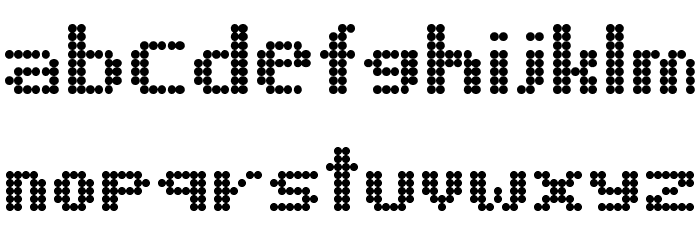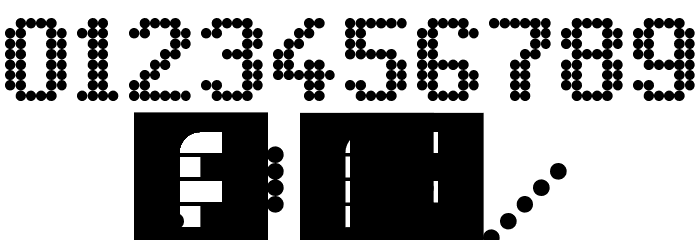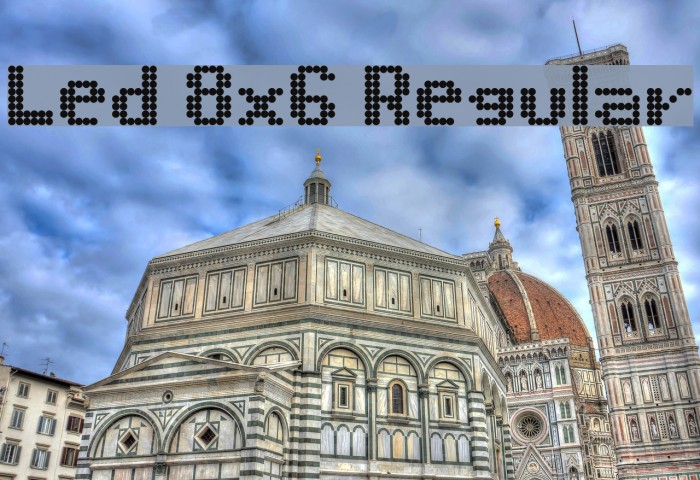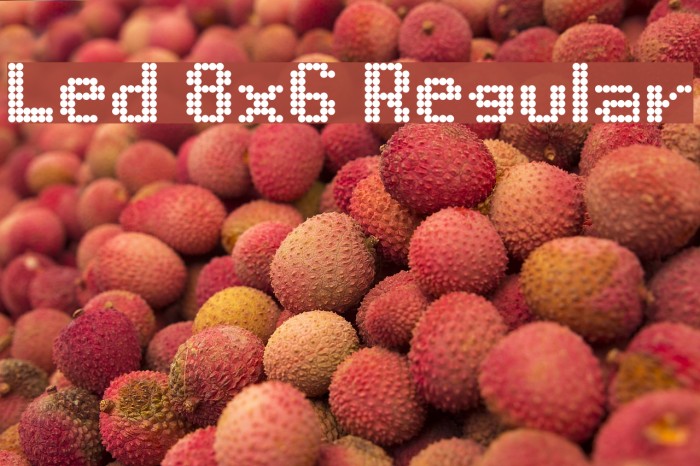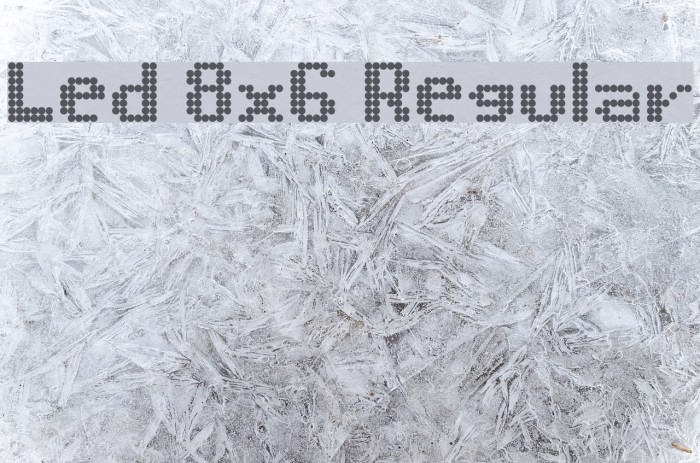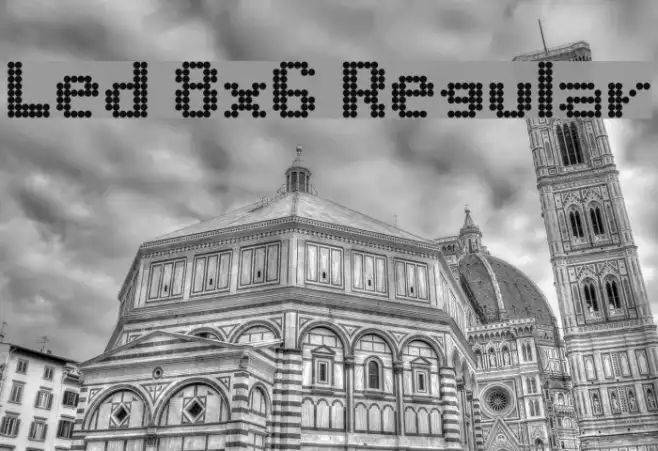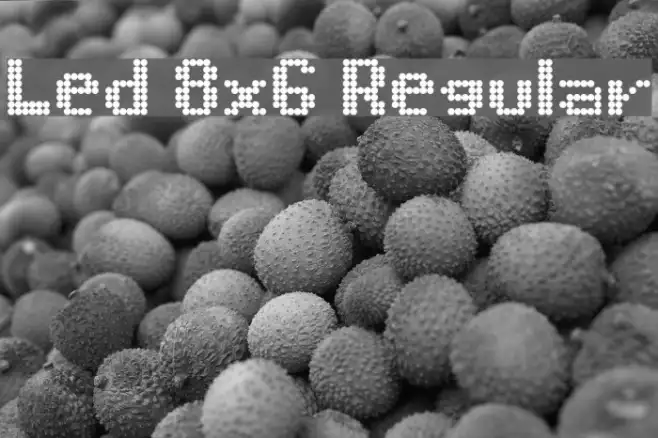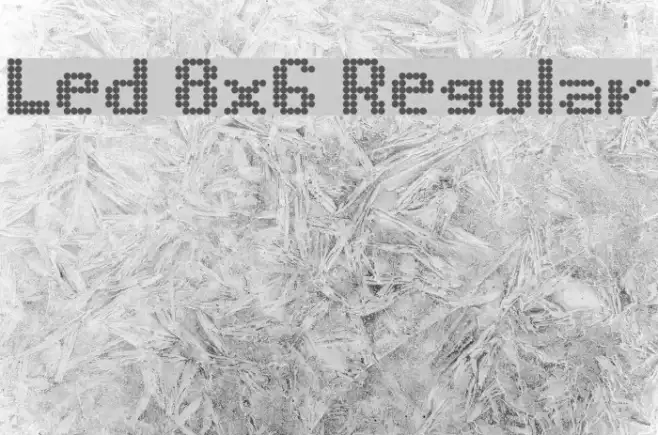
Led 8x6 Regular Font
This font features a unique dot matrix design, reminiscent of LED displays. Each character is composed of a grid of dots, creating a digital and modern aesthetic. The uppercase and lowercase letters, as well as numbers and special characters, maintain a consistent style, emphasizing uniformity and clarity. The spacing between the dots is even, contributing to a clean and organized appearance. This font is ideal for projects that require a technological or futuristic feel, such as digital displays, tech-themed graphics, or retro-inspired designs.
A dot matrix font with a digital, LED-inspired style.
- Proposed Projects: Ideal for digital displays, tech-themed graphics, retro designs, and electronic interfaces.